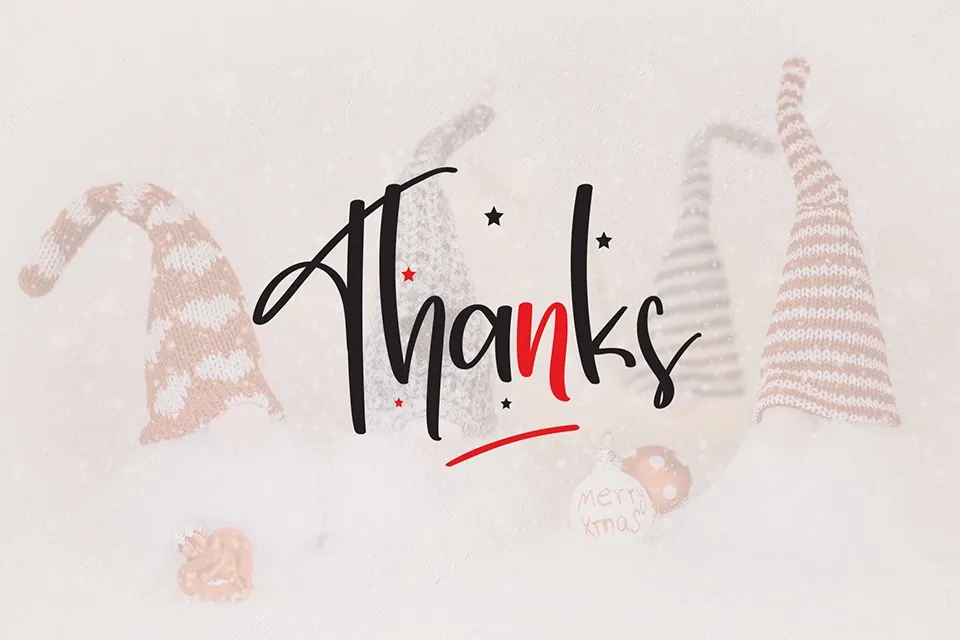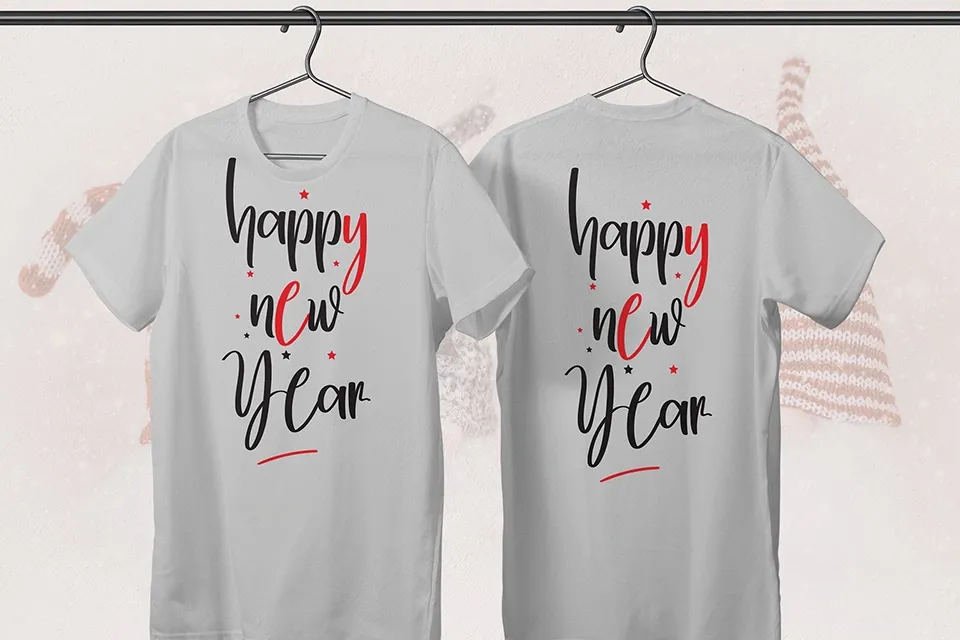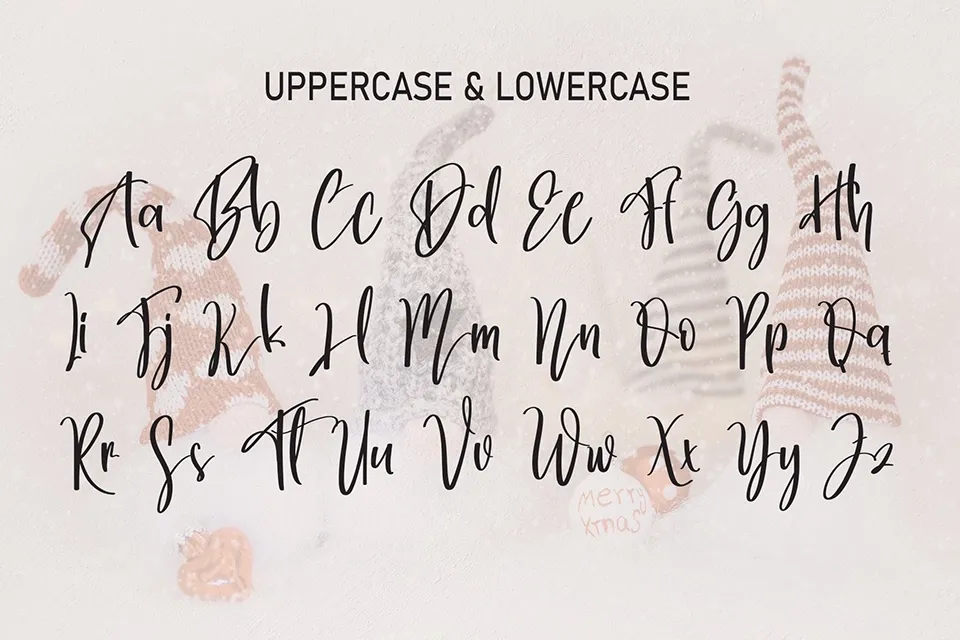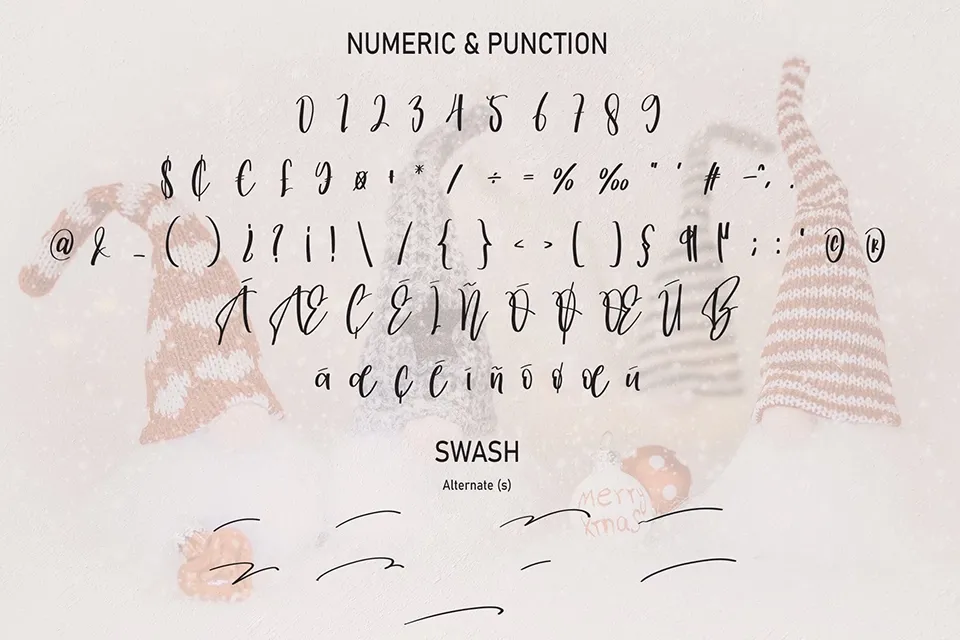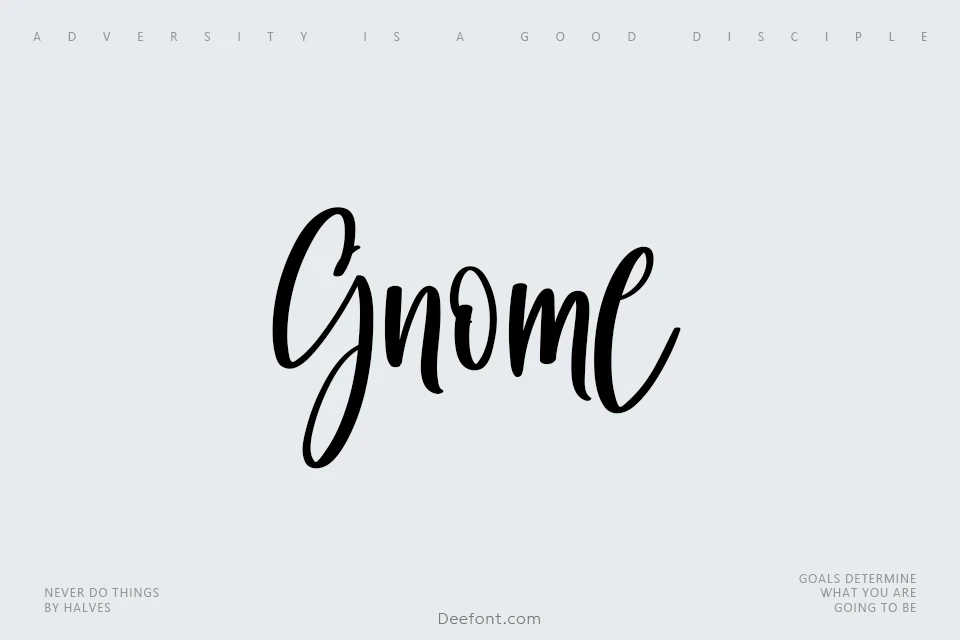
Gnome Font
Gnome Font is an organic handwritten typeface with a playful and stylish look, perfect for adding a personal and creative touch to your designs. Its smooth curves and natural flow make it ideal for branding, invitations, logos, and other creative projects where a unique handwritten style is desired.